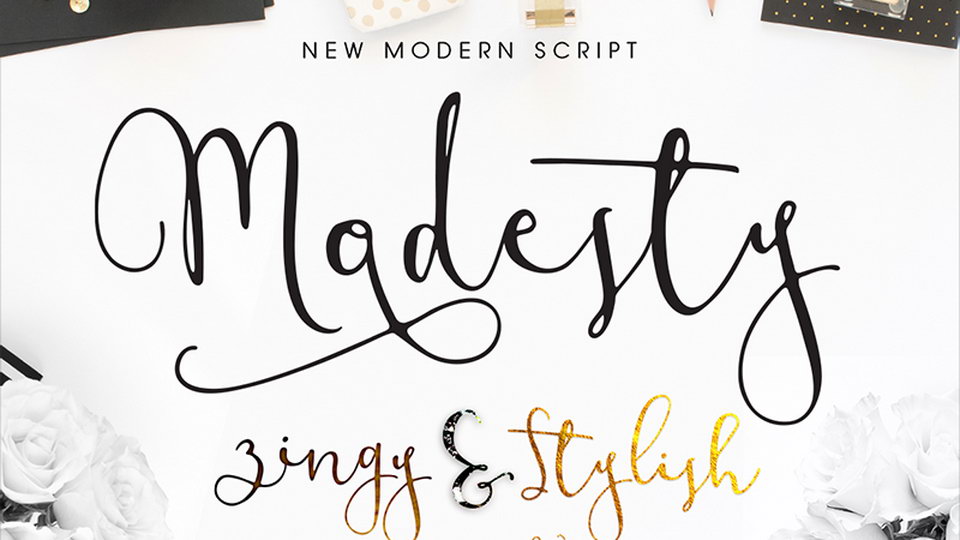
Download Modesty font – a lovely modern calligraphy script with dancing baseline. This font perfectly suits for crafted design, wedding decoration, social media, fashion and apparel and other beautiful art.
Designer: Mycandythemes